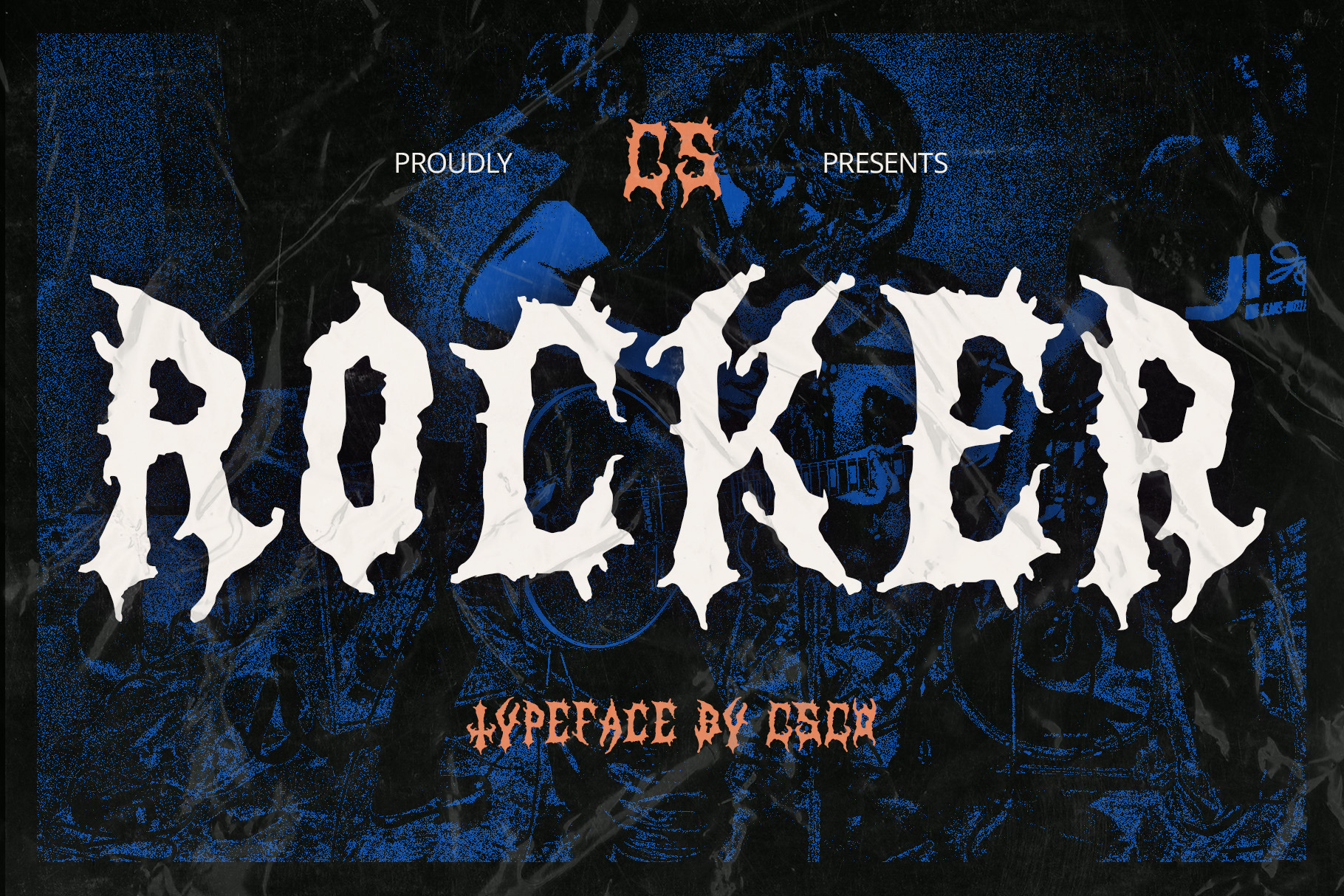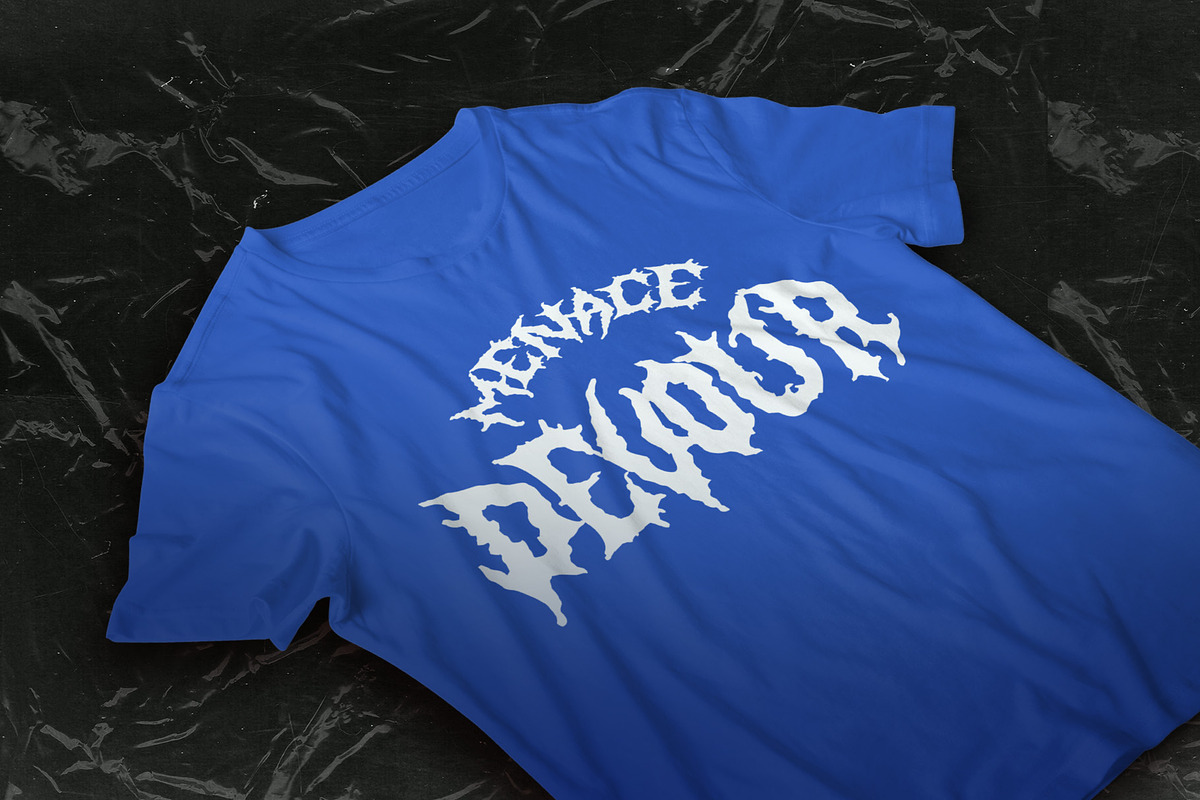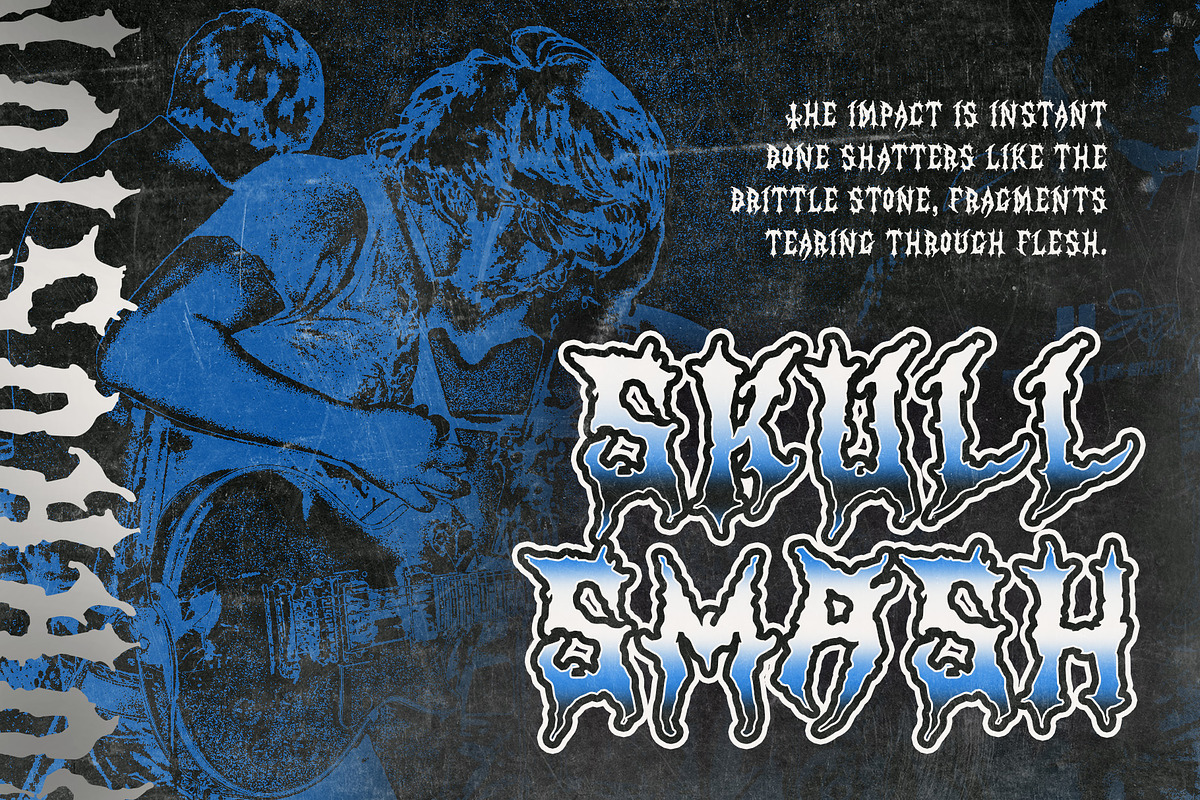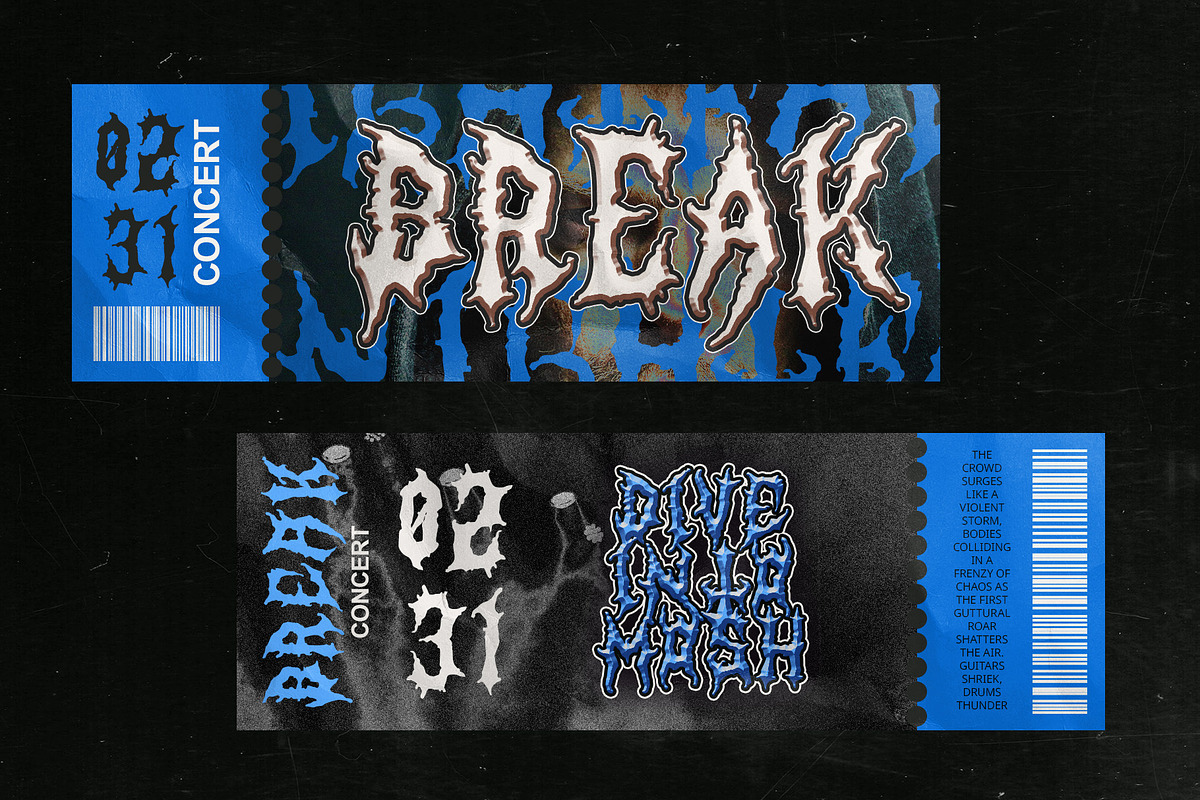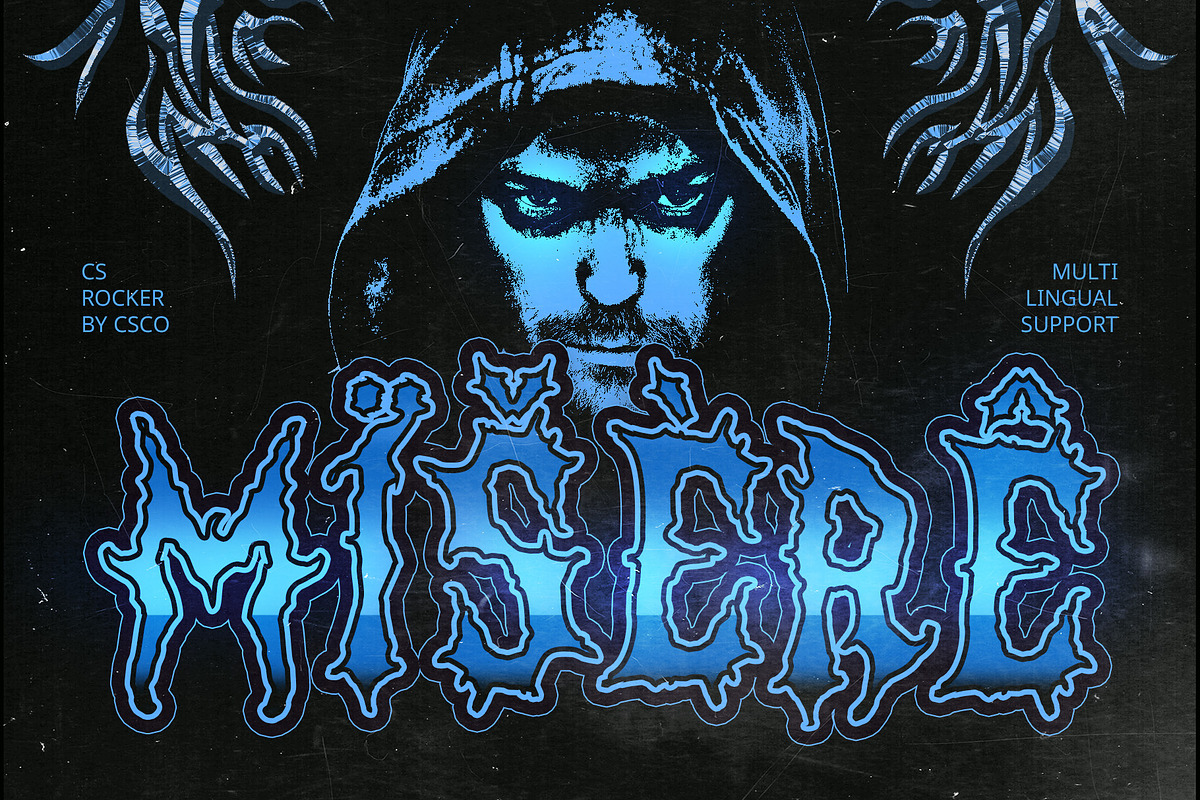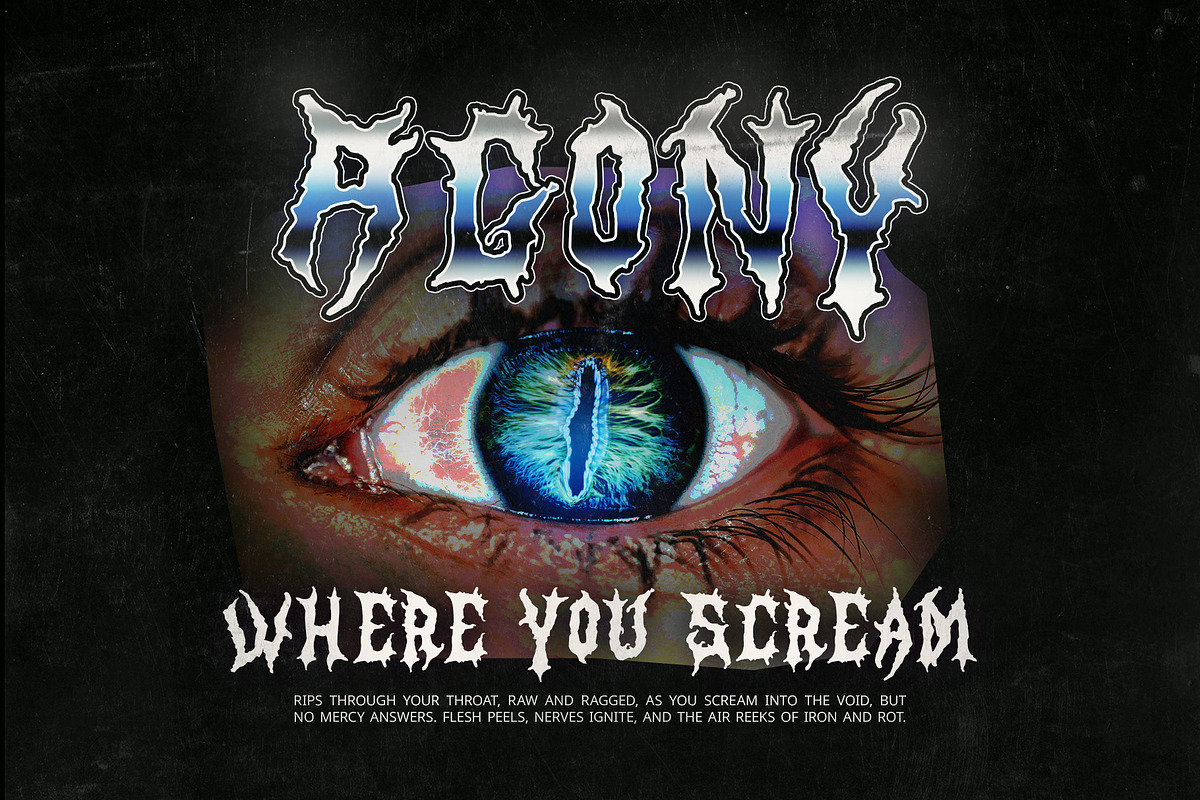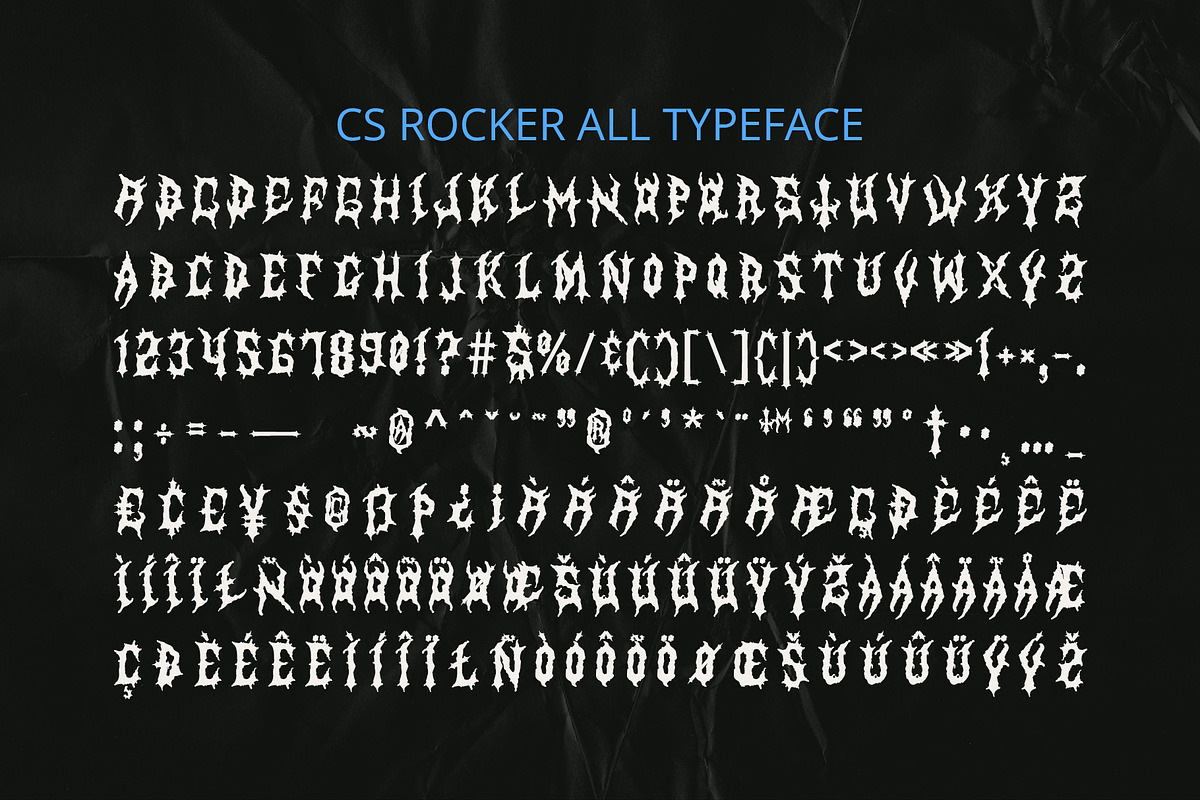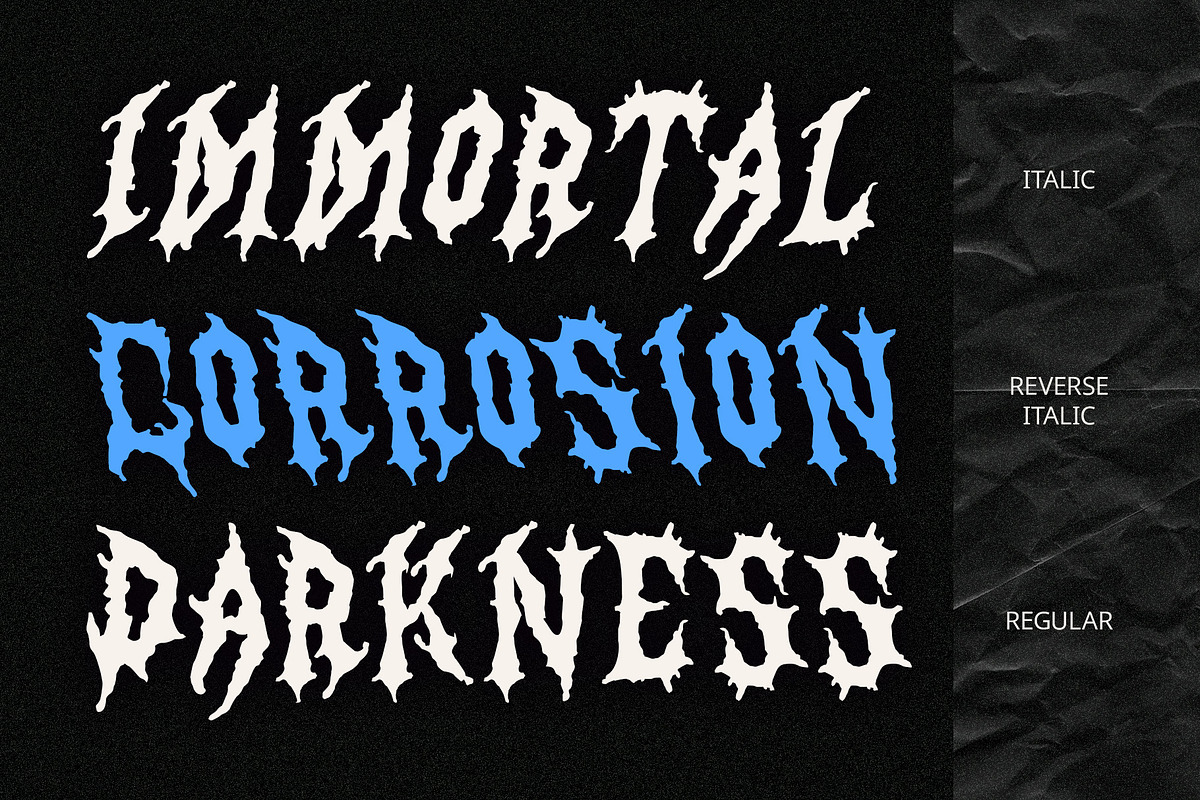
CS Rocker – Black Metal Font
CS Rocker – Black Metal Font: Raw Power and Extreme Aesthetics
Aggressive and Brutal Display Typeface CS Rocker is a Black Metal display font designed to embody the raw intensity of extreme music. Its jagged, sharp-edged letterforms, combined with rough textures and thorn-like extensions, create a chaotic yet captivating aesthetic. This font is built to stand out with an unapologetically brutal and rebellious presence.
Dark, Mysterious, and Uncompromising Style Inspired by the underground Black Metal scene, CS Rocker embraces the darkness with highly detailed, aggressive strokes and an eerie, almost ritualistic design. The combination of sharp spikes, distorted structures, and raw textures evokes a sense of mystery, danger, and unfiltered energy.
Perfect for Metal and Horror-Themed Designs CS Rocker is the ultimate choice for projects that demand a dark, powerful, and unconventional feel. Whether designing metal band logos, album covers, concert posters, or gothic and horror-inspired visuals, this font amplifies the impact with its intense, spine-chilling aesthetic.
Unleash Chaos with an Unforgettable Typeface With its extreme detailing and rebellious energy, CS Rocker breaks away from traditional typography, making it a striking addition to any dark or edgy design. If your project calls for an unrelenting and dominant Black Metal style, CS Rocker delivers the perfect dose of chaos and attitude.
- CS Rocker Regular
- CS Rocker Italic
- CS Rocker Reverse Italic